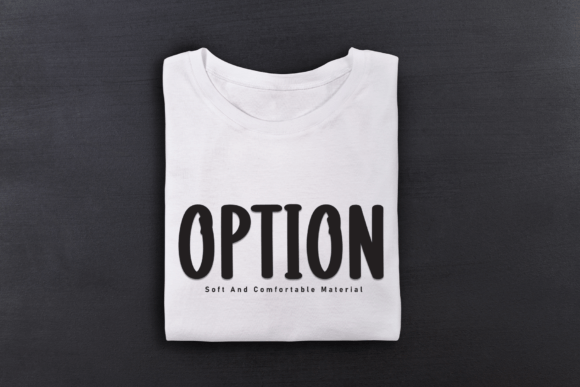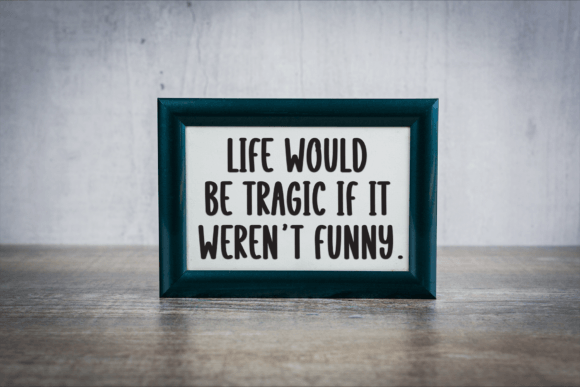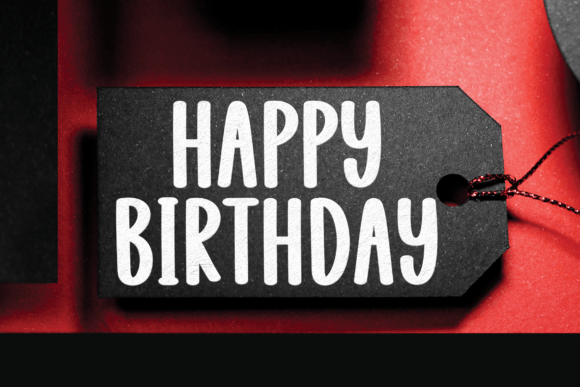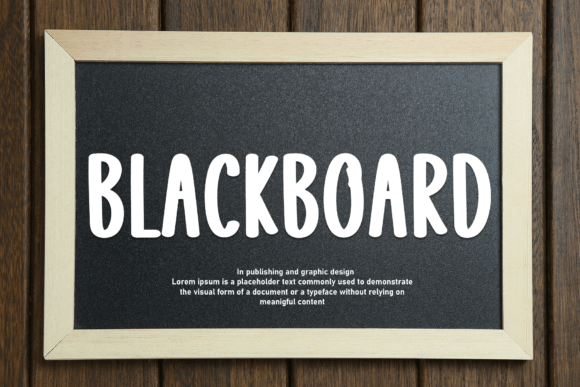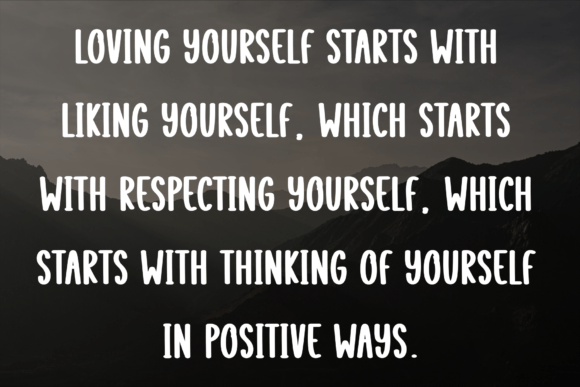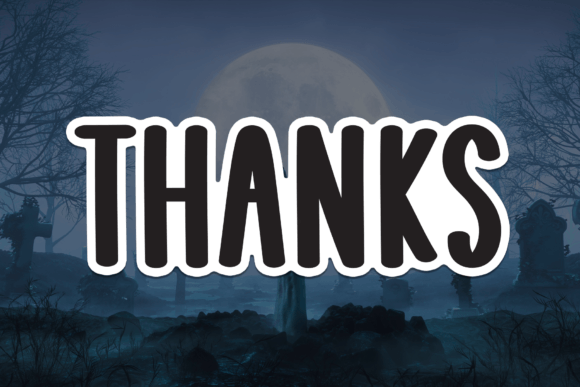
Introduction to Scaryday Font
Have you ever found yourself in a creative rut, staring blankly at a blank canvas or screen, searching for the perfect font to bring your project to life? For many designers, this is a familiar experience. But what if I told you that there’s a font that’s not only easy to read, but also radiates a sense of friendliness that’s hard to resist? Enter the Scaryday Font, a delightful display font that’s perfect for making your creative projects stand out.
Key Features of Scaryday Font
- Unique and spooky design perfect for Halloween-themed projects or any other creative project requiring a scary atmosphere
- Designed to be highly legible, even at small sizes, with a resolution of up to 300 DPI
Honest Review: Scaryday Font
I recently had the chance to work with the Scaryday Font, and I must say it’s been a wild ride. As a designer, I’m always on the lookout for high-quality design resources that can elevate my creative projects. In this review, I’ll share my thoughts on what works well, what doesn’t, and whether I’d recommend it to fellow designers.
- High-quality font styles: Scaryday Font offers a range of unique and spooky font styles that are perfect for Halloween-themed projects or any other creative project that needs a bit of an edge.
- Limited font variations: While the Scaryday Font offers some great styles, I feel like there could be more variations to choose from, especially for designers who want to mix and match different fonts in their projects.
- Not ideal for non-Halloween projects: The font’s spooky theme might not be suitable for all types of creative projects, which could limit its use.
Overall, I’d say the Scaryday Font is a solid design resource that can add a unique touch to your creative projects. While it has some limitations, I appreciate its high-quality font styles and transparent background. If you’re working on a Halloween-themed project or something with a spooky vibe, Scaryday Font is definitely worth checking out.
Tips for Getting the Most Out of the Scaryday Font
To get the most out of the Scaryday Font, try pairing it with other Halloween-themed design elements, such as ghosts, bats, or spiders. You can also use the font to create a sense of depth and dimension in your design, by layering it with other elements.
Common Use Cases for the Scaryday Font
The Scaryday Font is perfect for Halloween-themed designs, such as invitations, posters, and social media graphics. It’s also great for creating spooky and eerie atmosphere in your designs, making it a popular choice for horror movie trailers and haunted house advertisements.